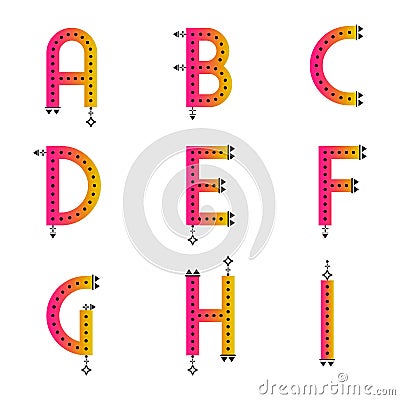
Bright Gradient ABC Collection. Simple Ethnic Style Letters. Aztec Pattern Black Dotted Alphabets. Isolated Vector Characters Font
Bright gradient ABC collection. Simple ethnic style letters. Aztec pattern dotted alphabets. Vector characters font set. Lettering illustrations. Logo initials. Heading title font. Ideal for educational and infographic elements.